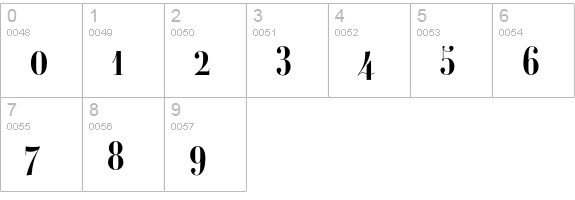
Ambroise Firmin Demi is a sub-bold, structured variant in the Ambroise typeface family \xE2\x80\x94 well suited to sub-headlines and emphasised passages.
Ambroise Firmin Demi is a modern and stylish font that exudes sophistication and elegance. This versatile typeface strikes the perfect balance between classic and contemporary elements, making it ideal for a wide range of design projects. With its clean lines and sleek design, Ambroise Firmin Demi adds a touch of refinement to any text or branding. One of the standout features of Ambroise Firmin Demi is its bold and impactful presence, making it perfect for headlines, titles, and logos. Its strong and confident appearance commands attention while maintaining a sense of sophistication and professionalism. This font is perfect for designers looking to make a statement with their typography. Whether you're working on a branding project, editorial design, or advertising campaign, Ambroise Firmin Demi will elevate your work to the next level. The best part? Ambroise Firmin Demi is available for free download at FontsMarket.com. So you can add this stunning font to your collection without breaking the bank. Don't miss out on the opportunity to enhance your designs with the timeless elegance of Ambroise Firmin Demi.